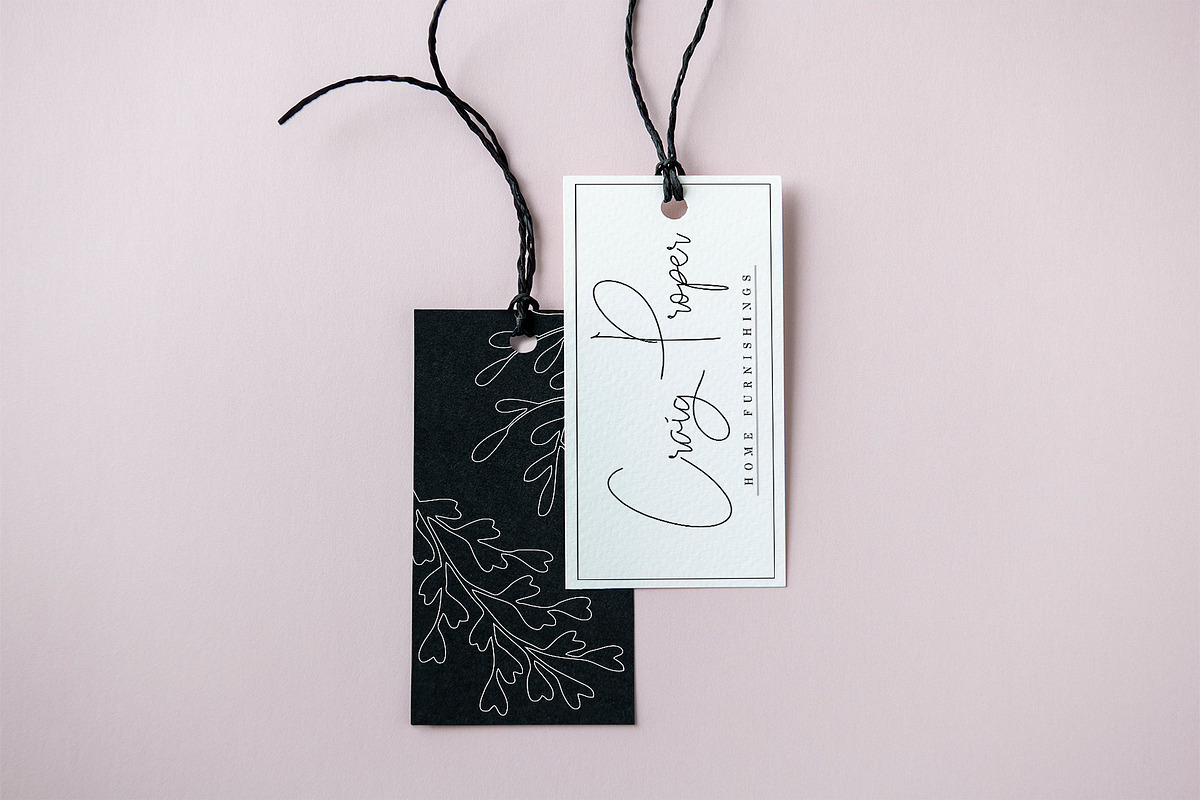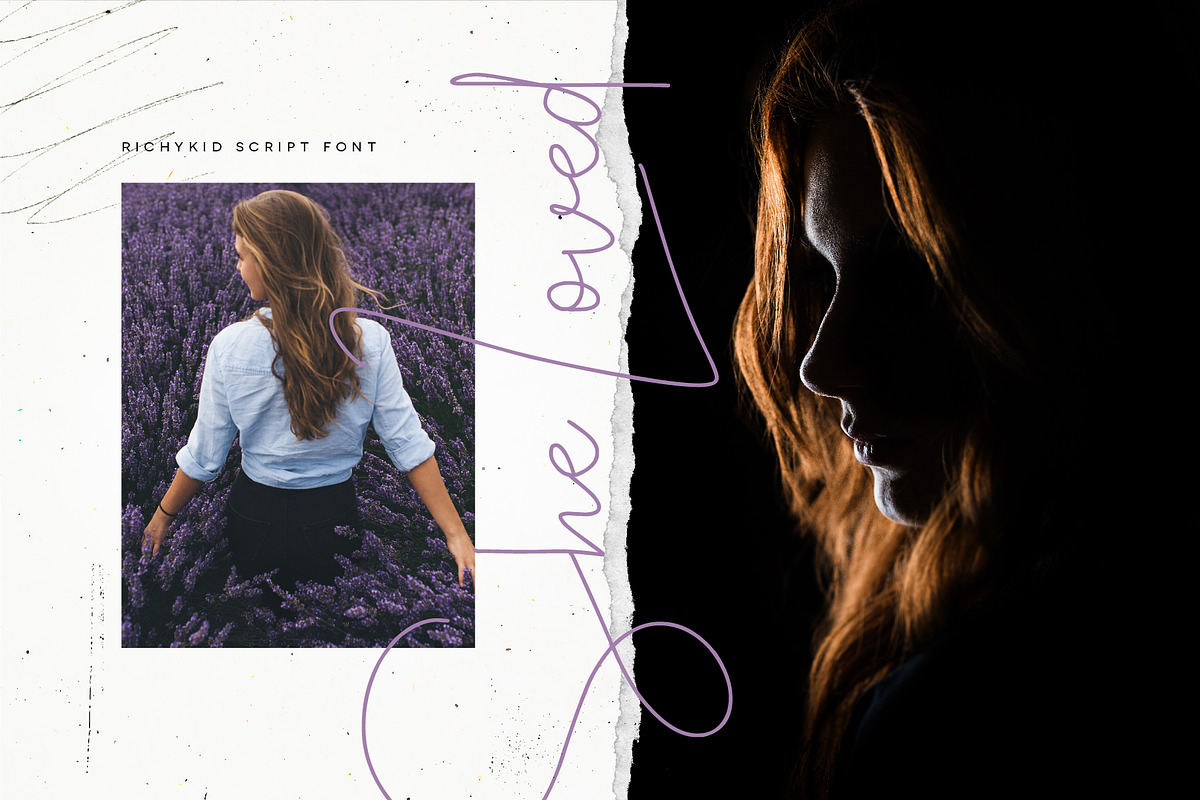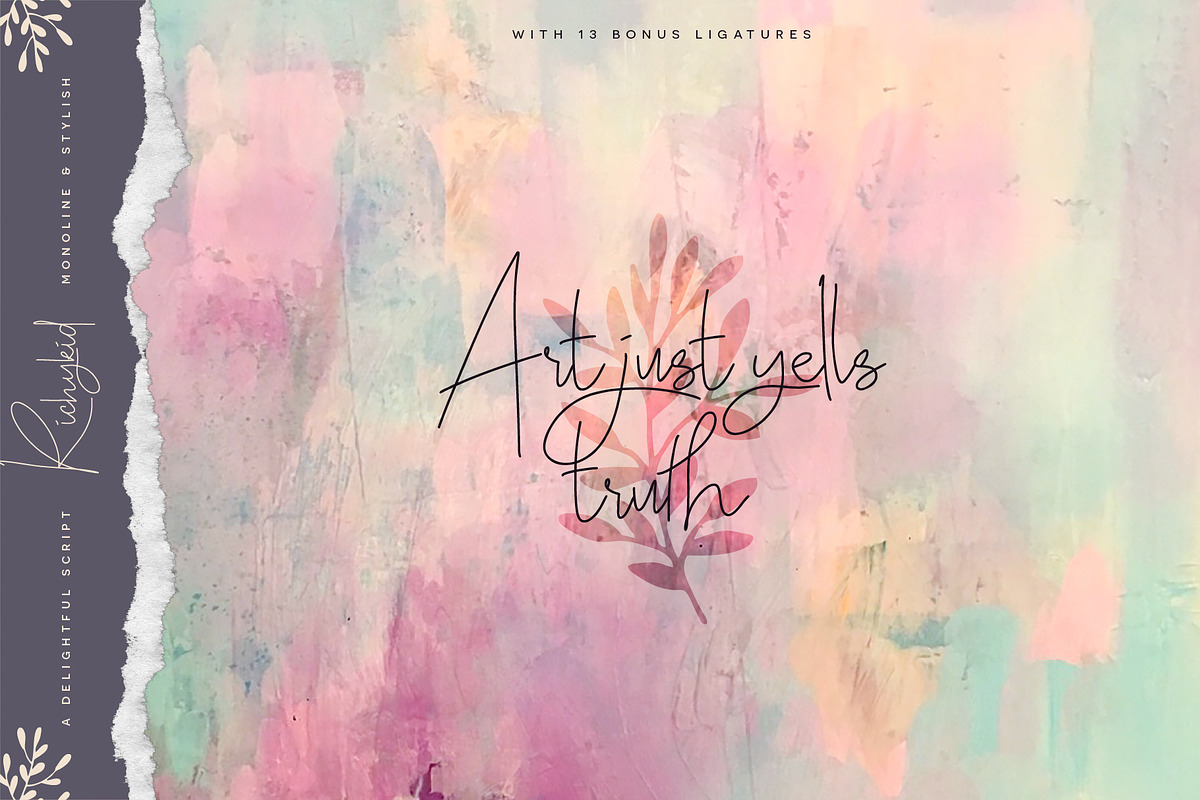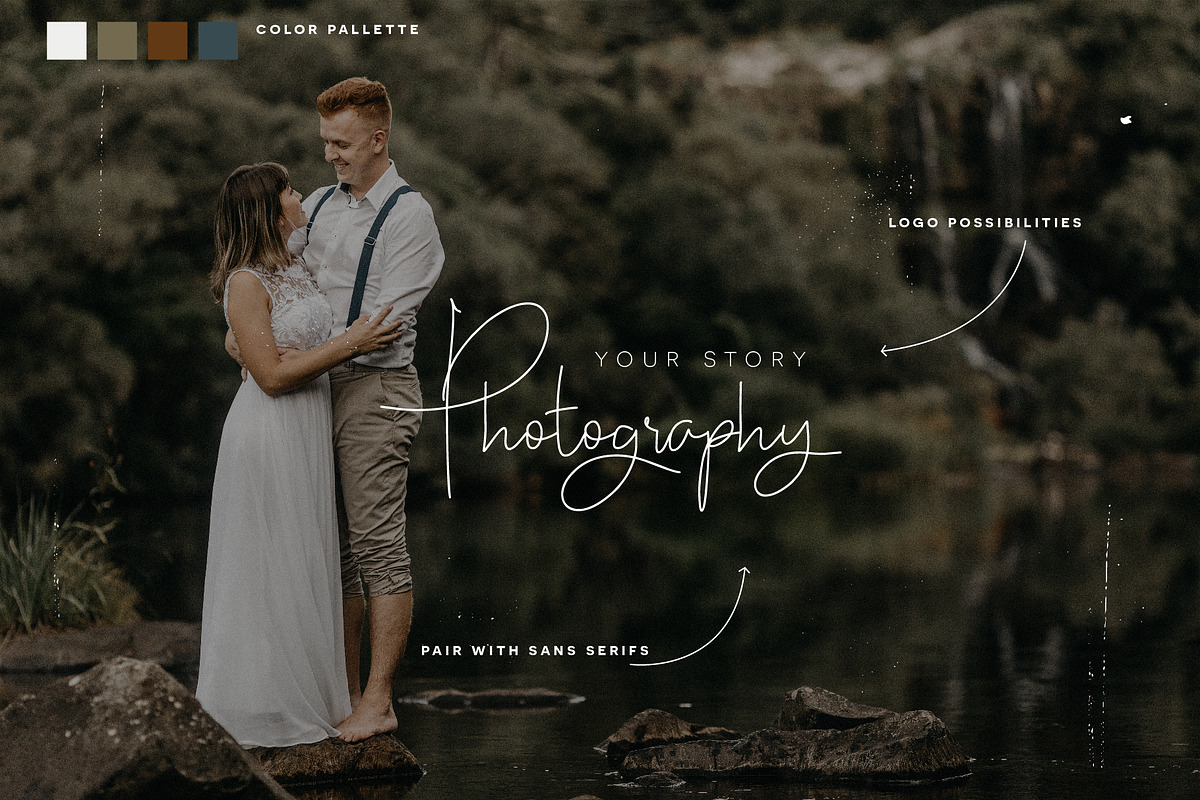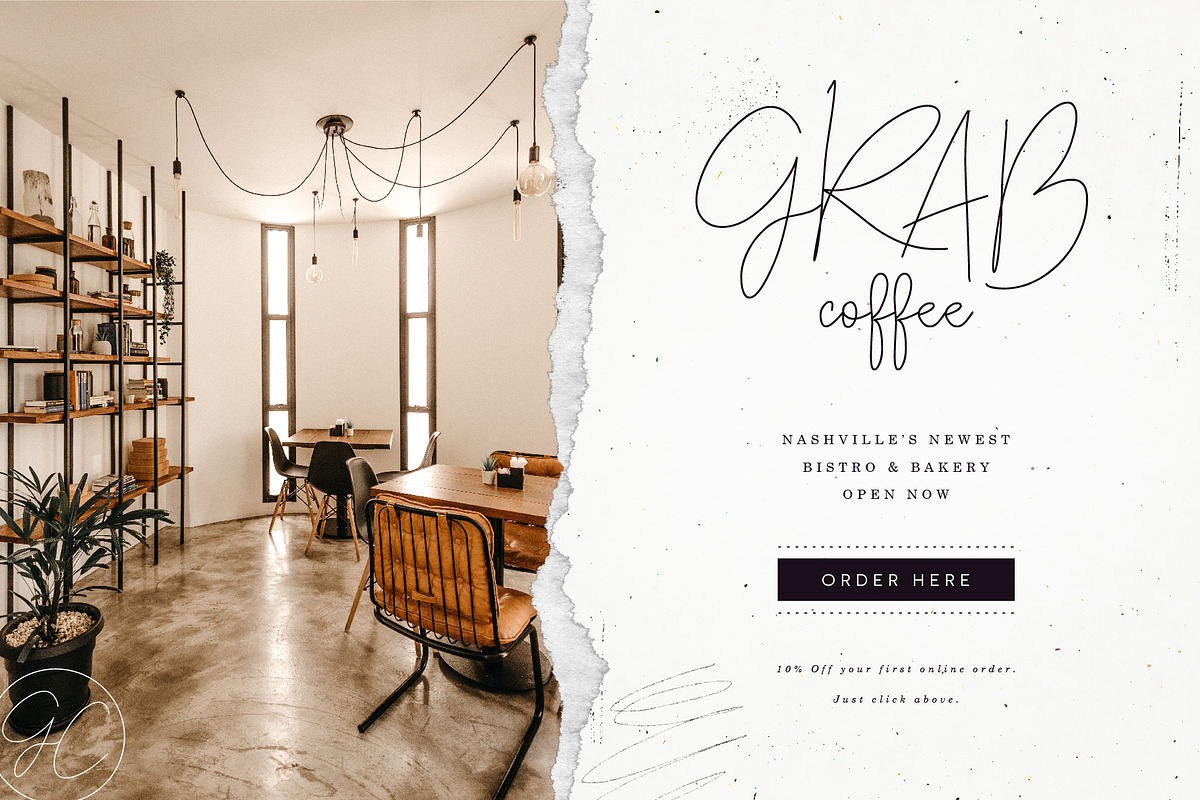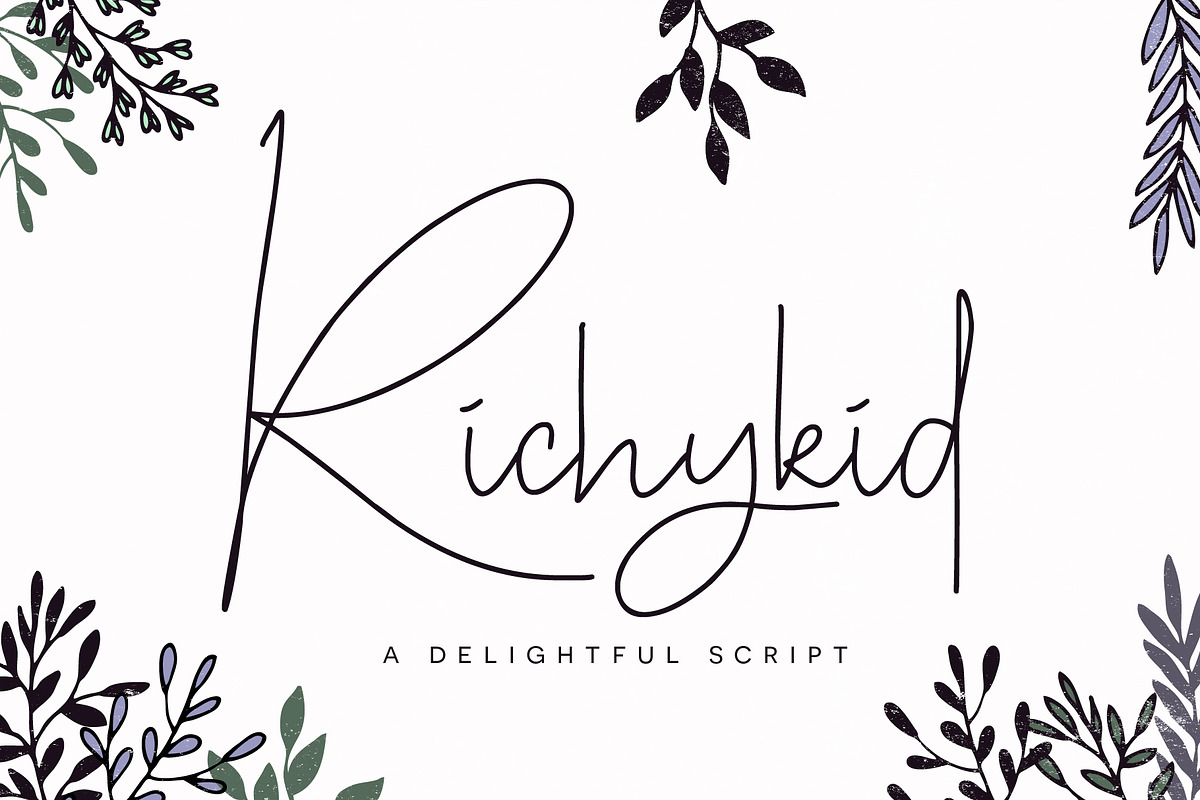
Richykid Font
Richykid is a delightfully monoline signature style font intentionally crafted to give your designs new life! Throw it up on your businesses social media posts, use it in logos, slap it on an invitation! This typeface is designed to make your designs feel stylish yet approachable. So enjoy!
Over 100 Bonus Glyphs including a dozen ligatures and International Language Support (ENGLISH, FRENCH, SPANISH, GERMAN, POLISH, ITALIAN, PORTUGUESE)